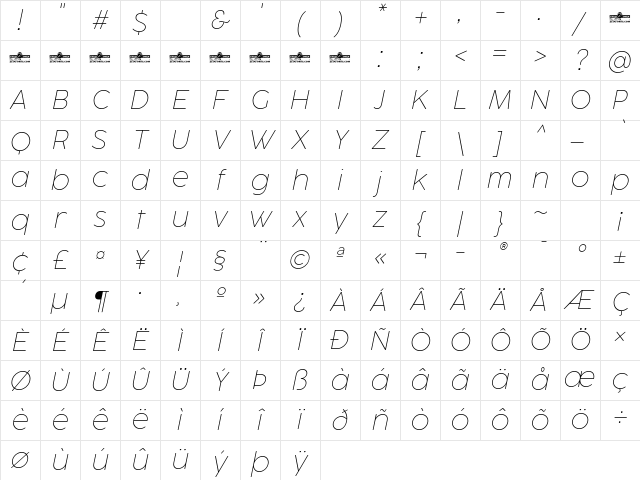
Cocogoose ProTrial Thin Italic Free Font
Cocogoose ProTrial Thin Italic
Style: Thin Italic
Foundry: Zetafonts
Designer: Cosimo Lorenzo Pancini
Cocogoose ProTrial Family
Cocogoose ProTrial Thin Italic
Design Context for Cocogoose ProTrial
Cocogoose ProTrial is a composed and adaptable typeface that performs quietly and consistently across a wide range of design contexts. The slanted form adds forward momentum and visual energy. Its slender proportions lend an understated elegance to any composition.